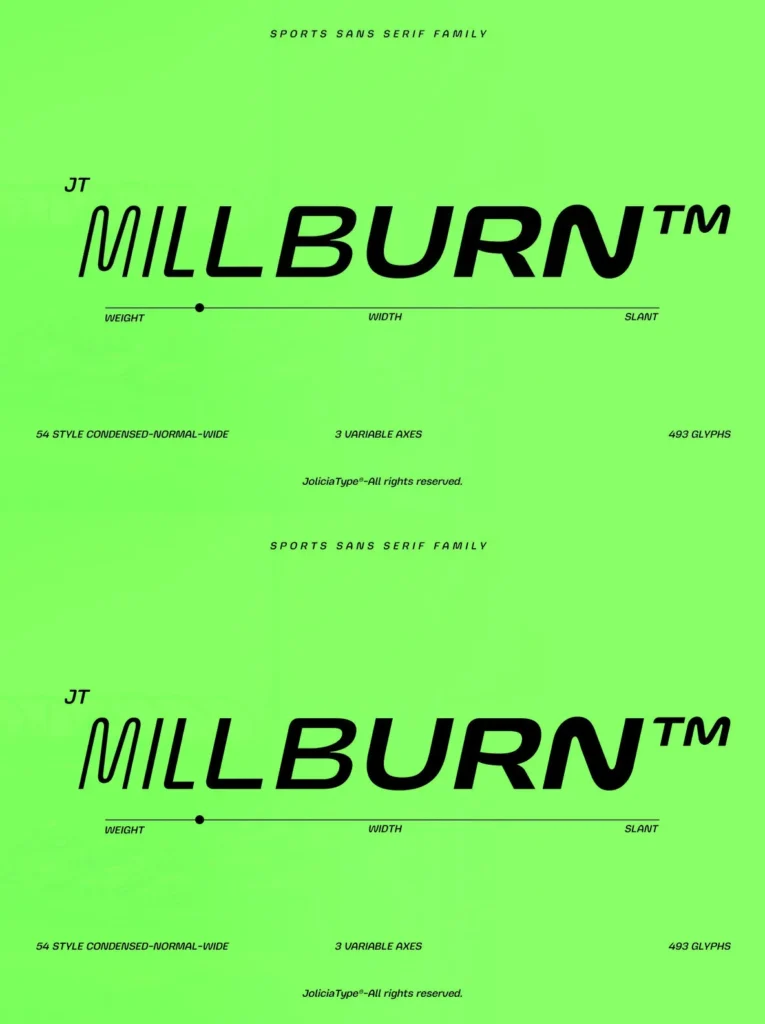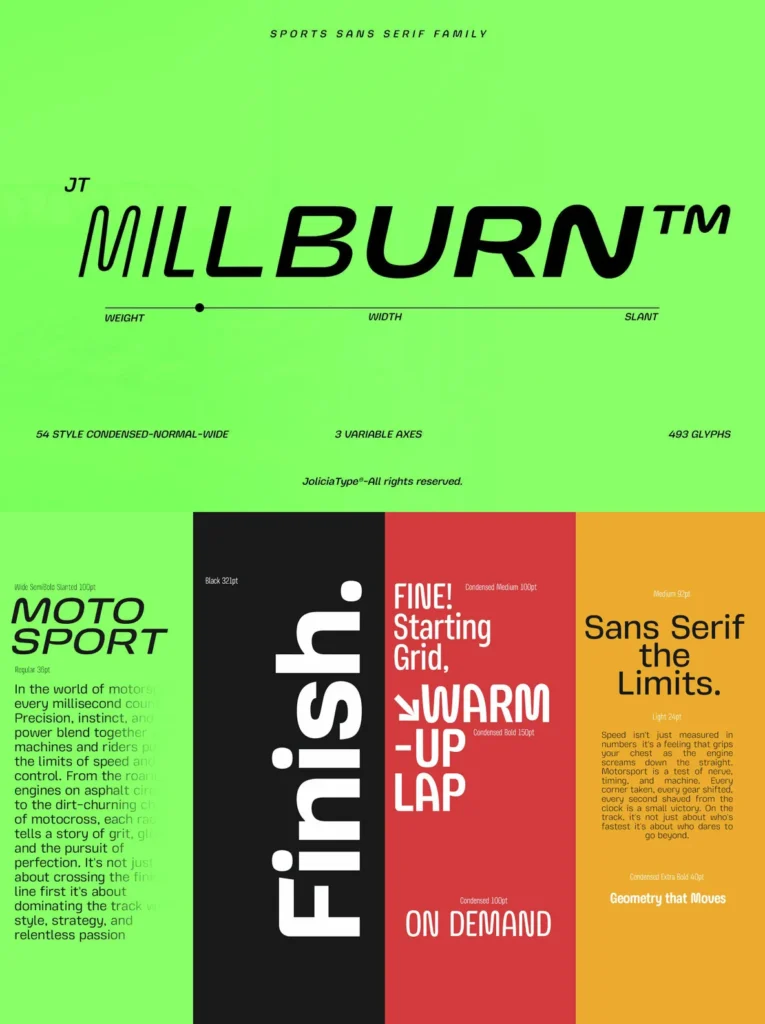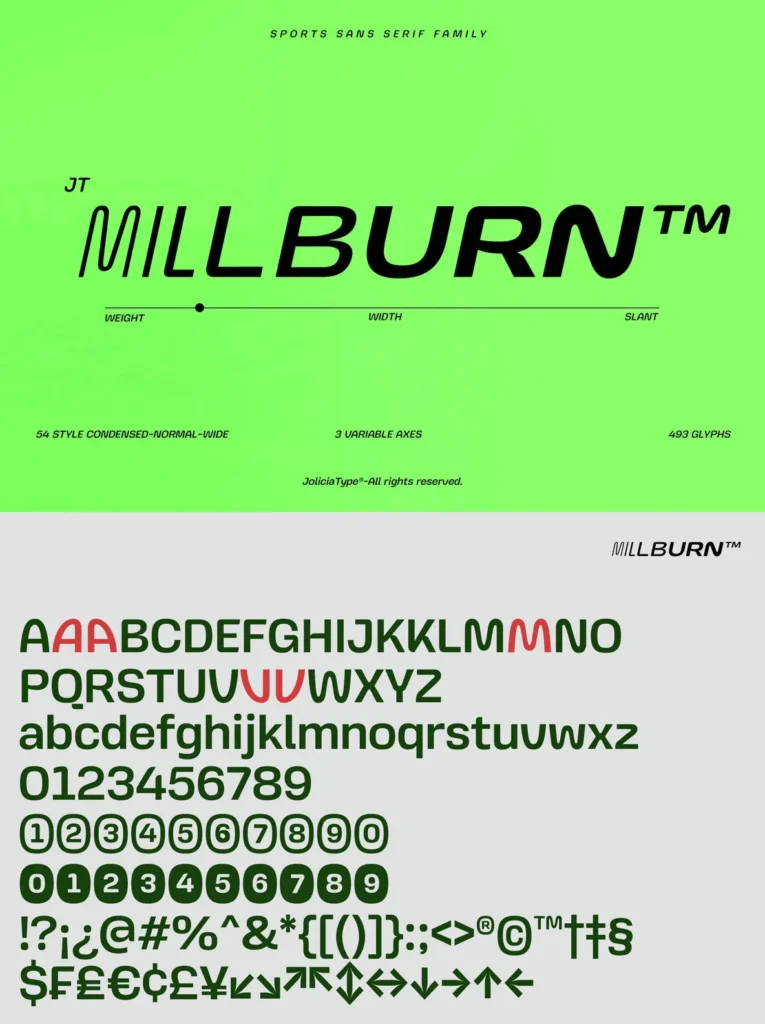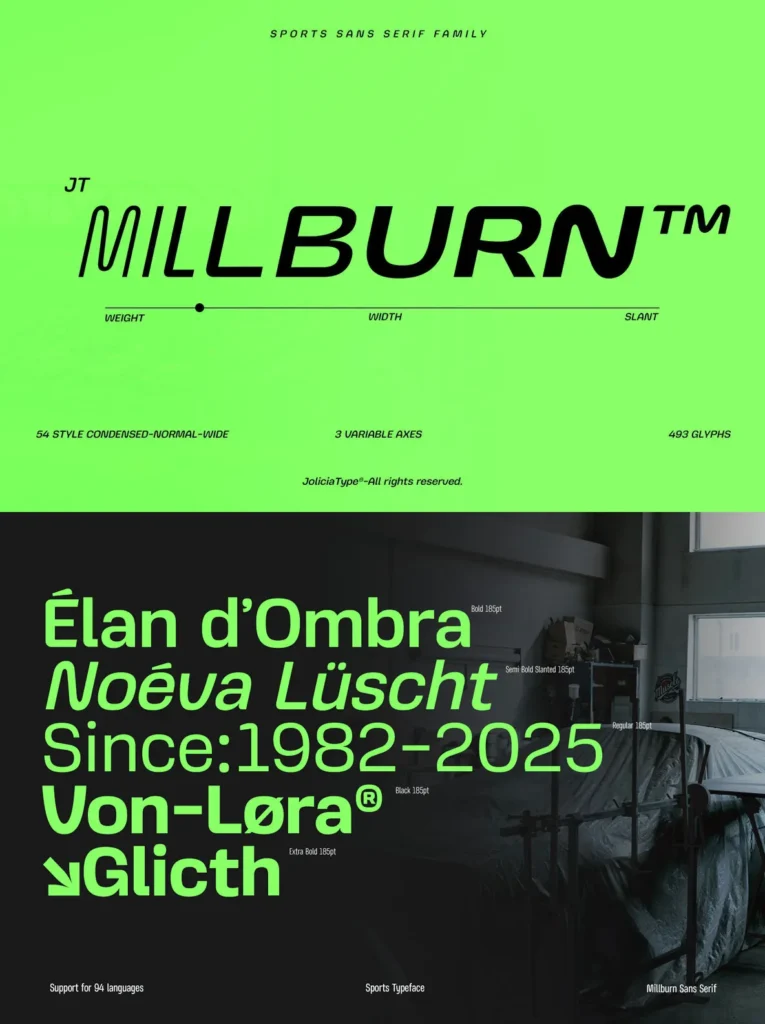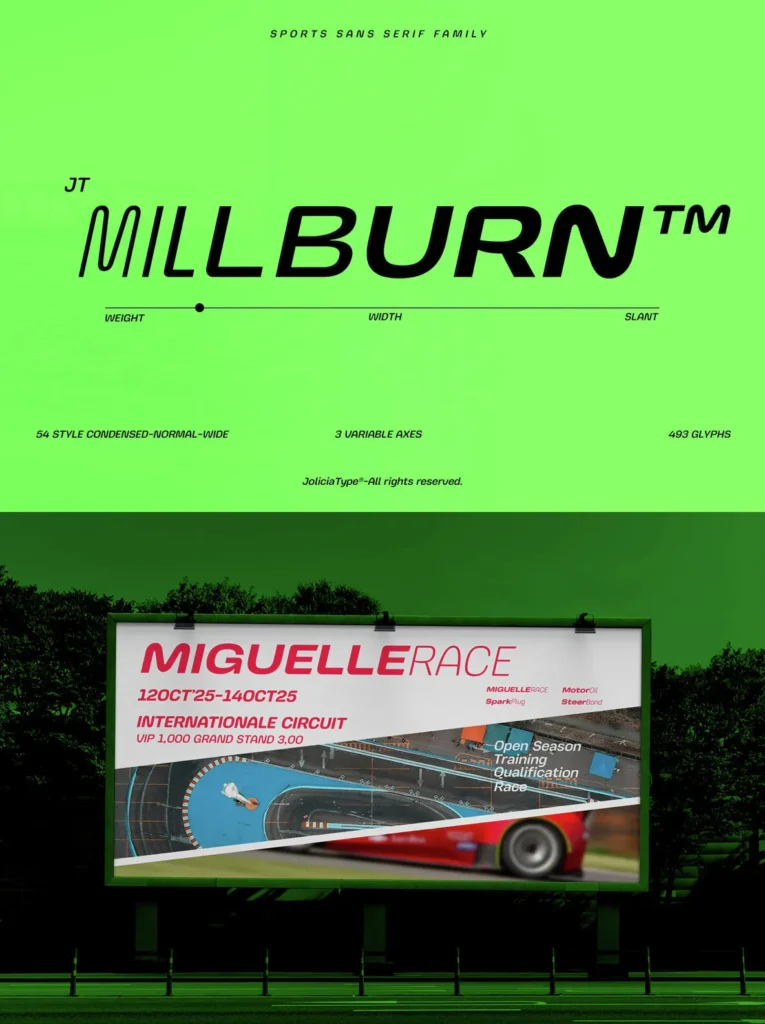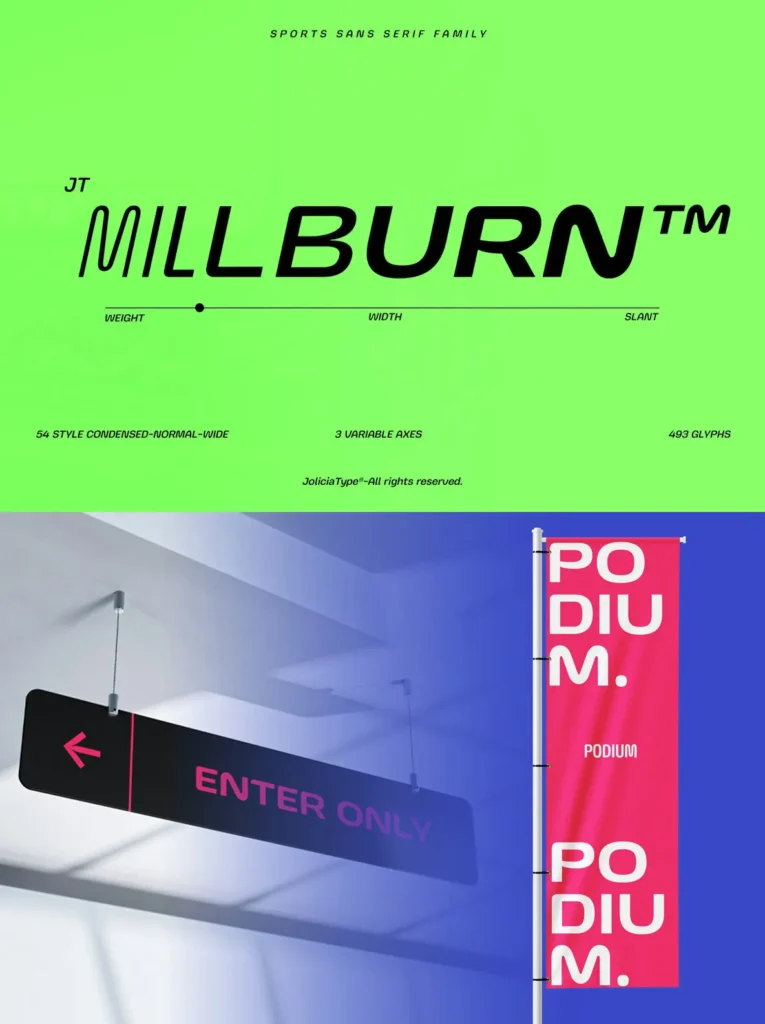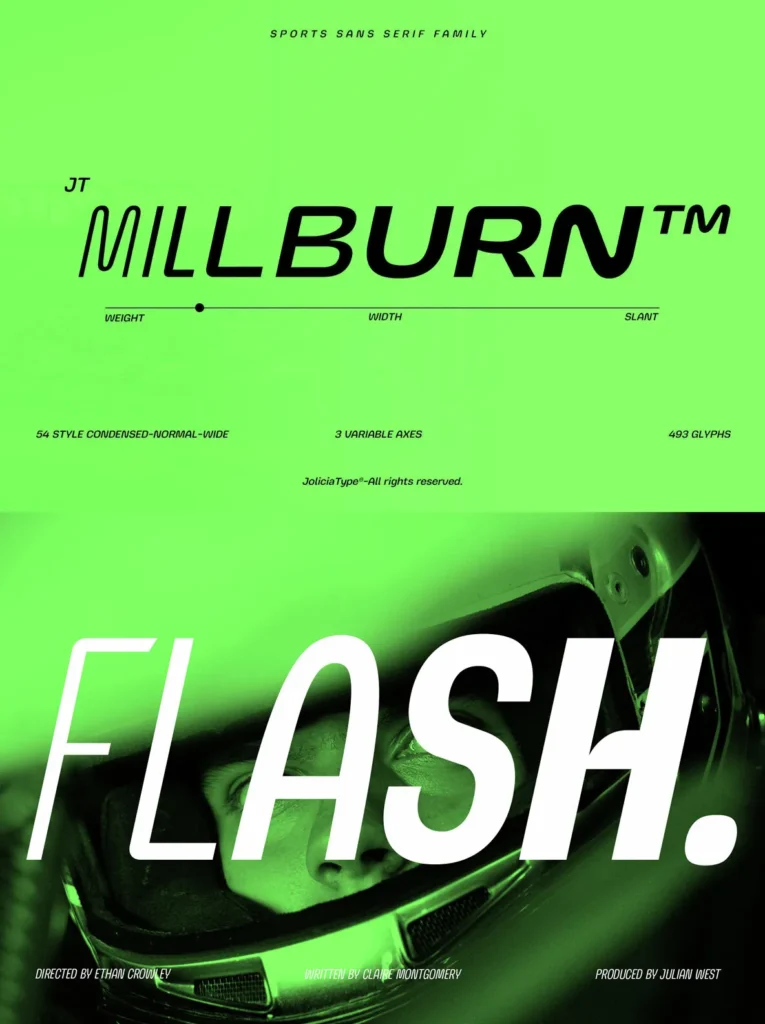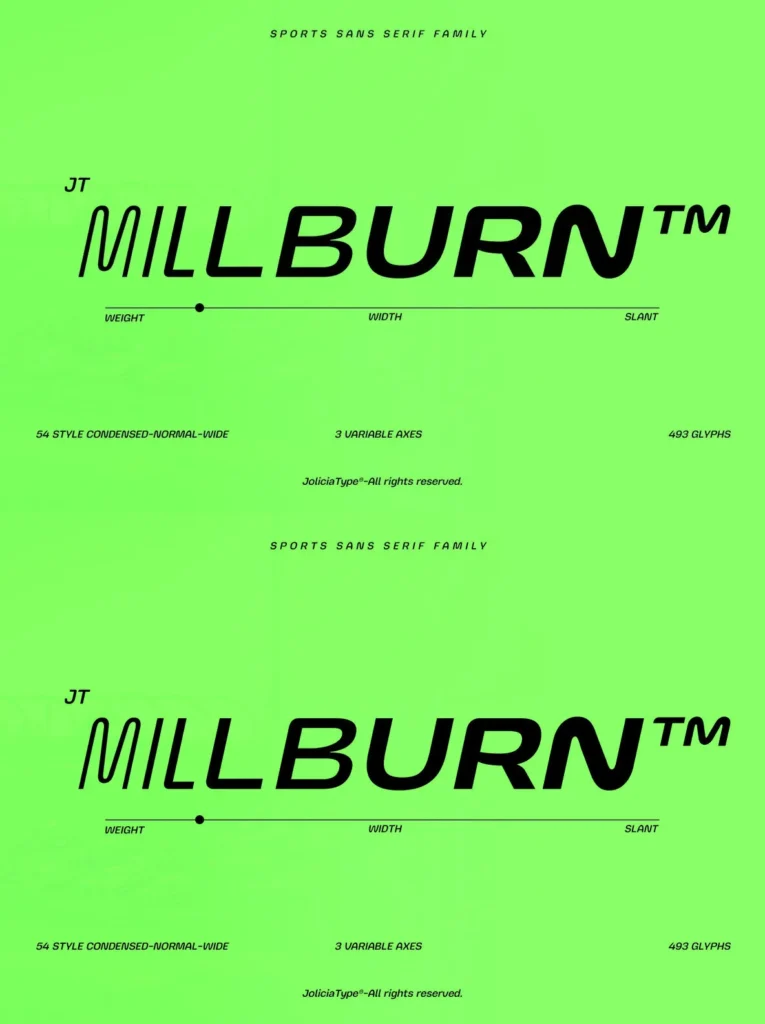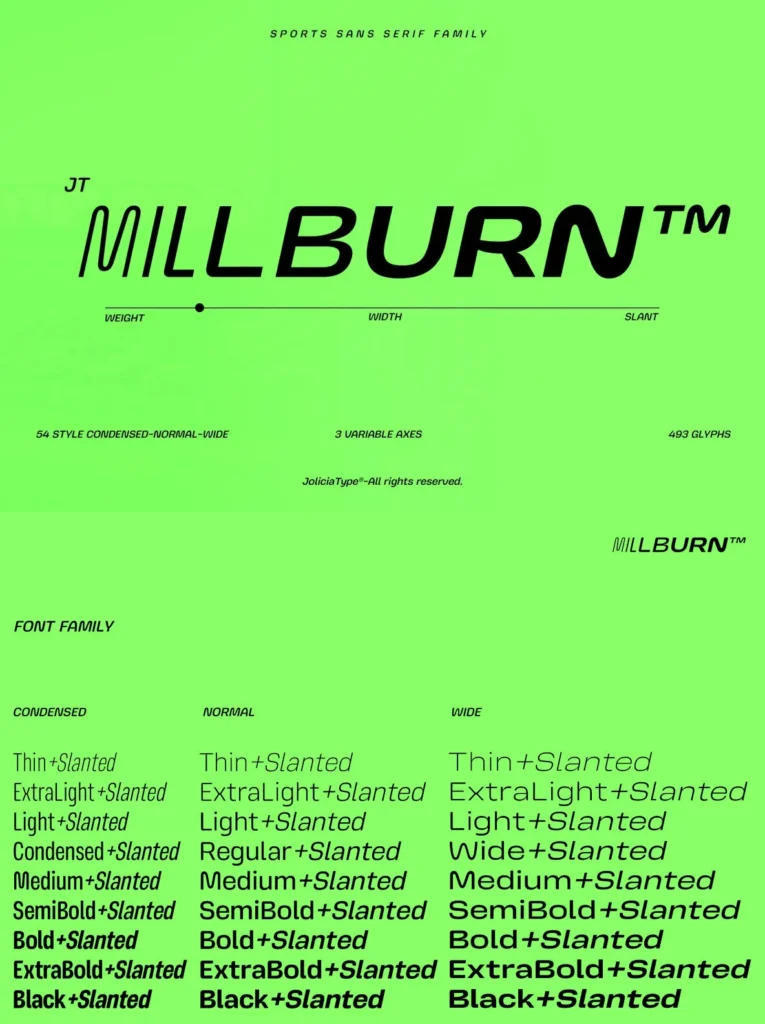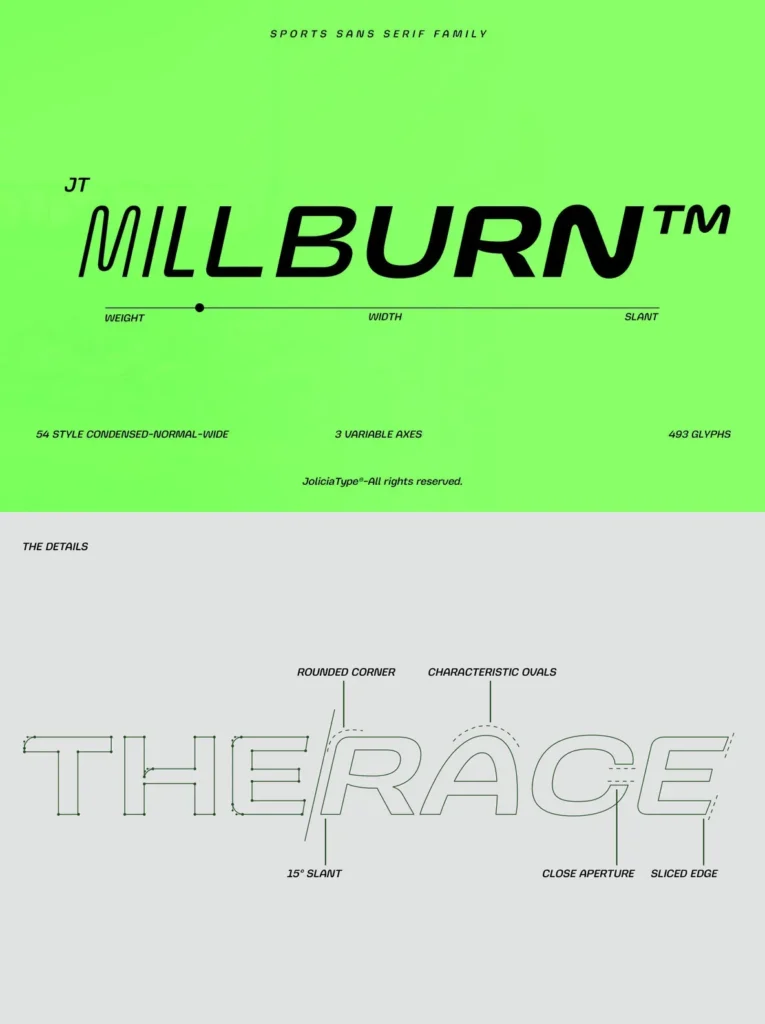
JT Millburn: Motion-led type for bold layouts
A motorsport-inspired typeface designed by Jolicia Type, built for fast, graphic communication. Three variable axes—Weight, Width, and Slant—give you direct control over tone and fit, from compact marks to expanded, attention-forward editorial settings. Use it across sports branding, automotive identities, and bold page layouts where clarity and energy matter.
A 15° slant adds a clear sense of motion, making it well suited to impactful headlines and dynamic compositions. The full family includes 54 styles, providing a wide range of options for print and digital work. JT Millburn balances modern aesthetics with performance-minded utility, so it stays legible while still feeling assertive.
Key Features
Support for over 90 languages and 493 glyphs.
Stylistic alternates for uppercase letters: A, I, K, and V.